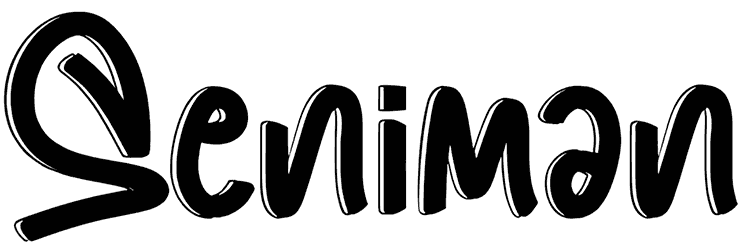
Seniman Font
With a playful and funny face, your design will be catchy and interesting. As a handwritten font, Seniman has artistic brush letters that would be an impressive show for a lot of projects, such as posters, ads, invitations, apparel, and so forth. This handwritten font doesn’t consist of numbers and punctuation, but having three styles can cover this lack.